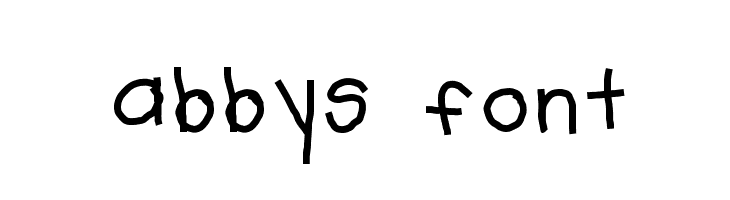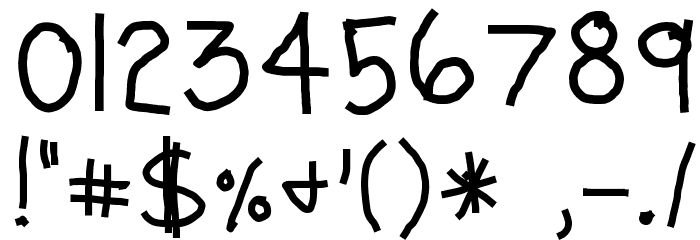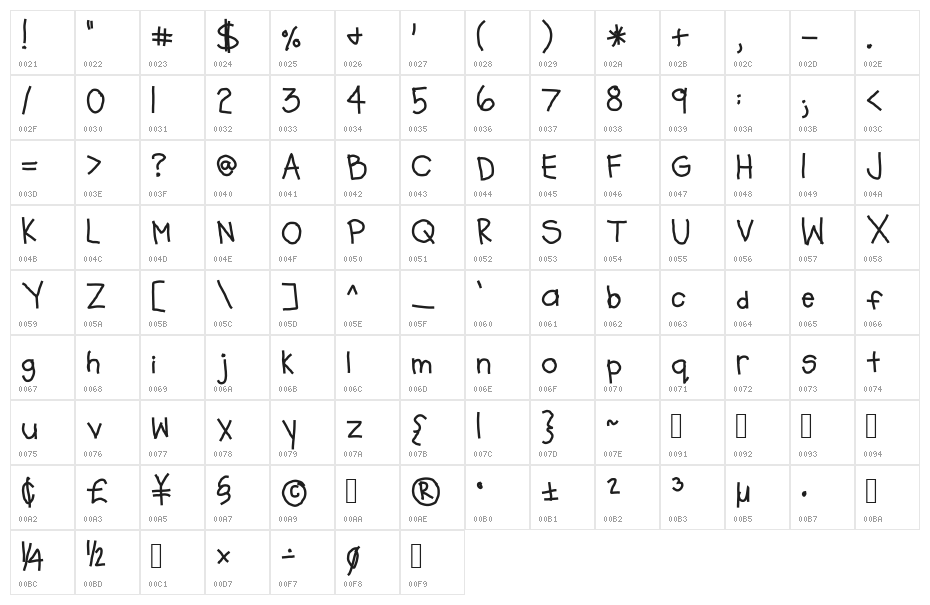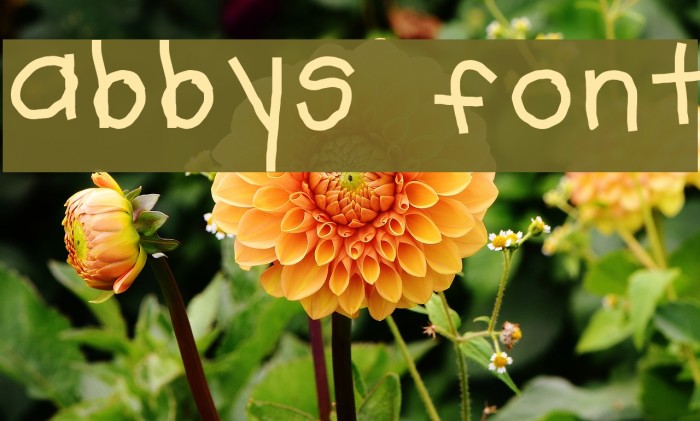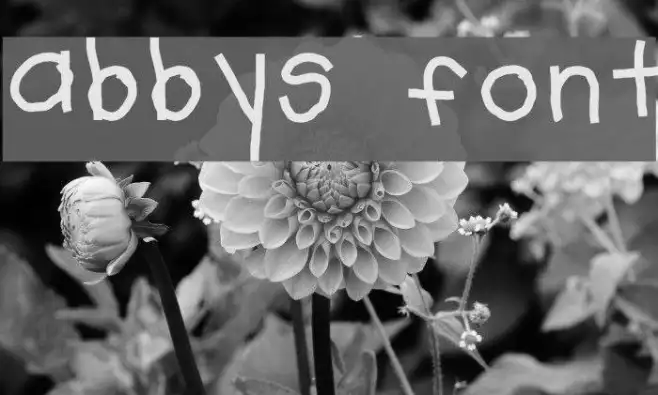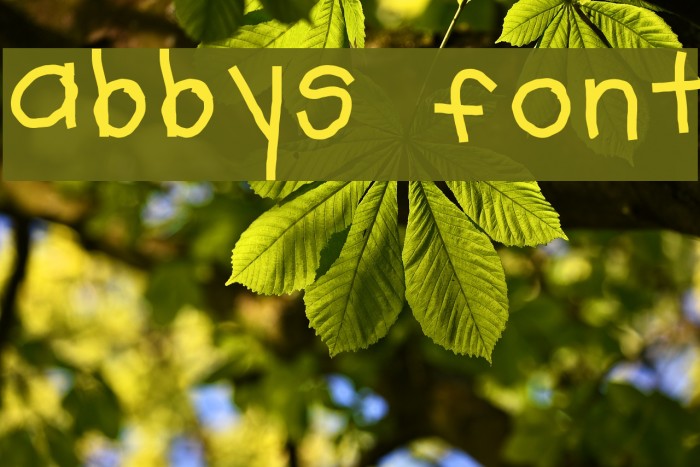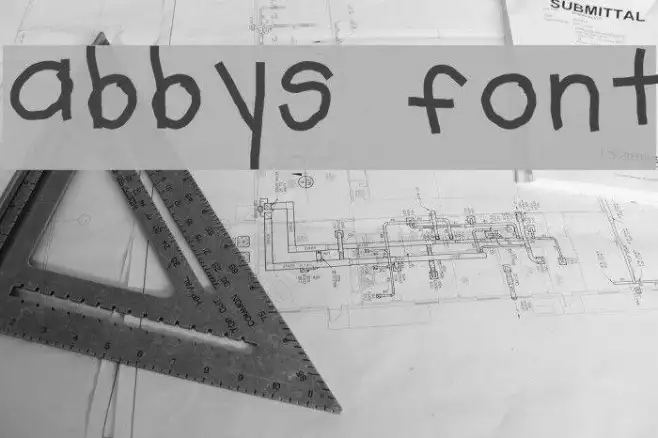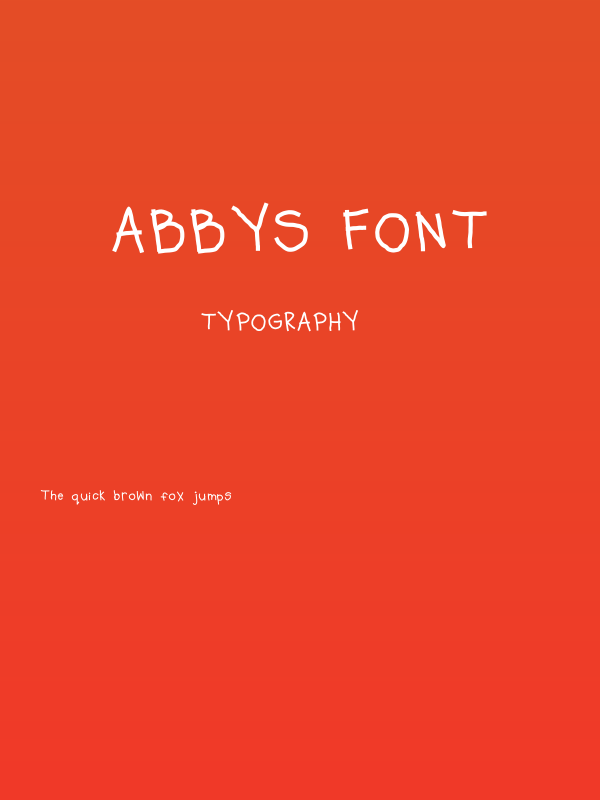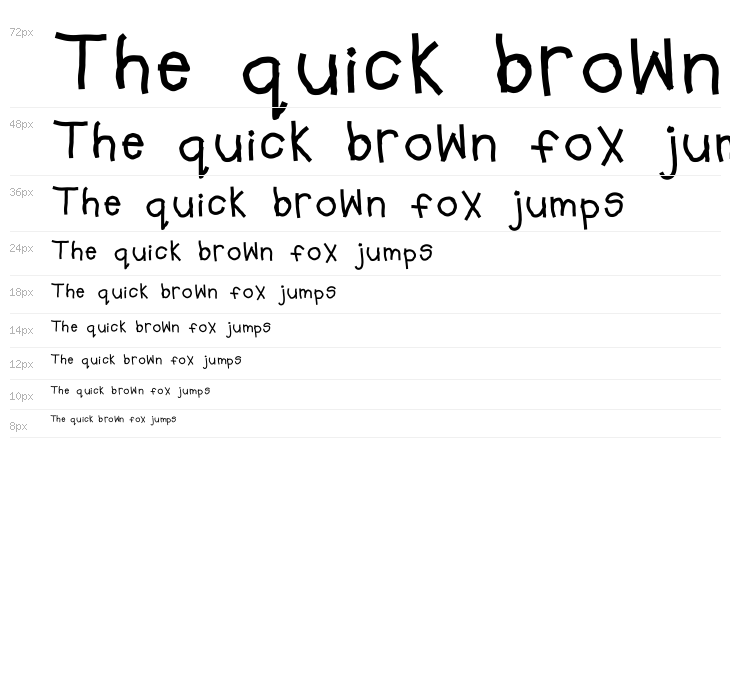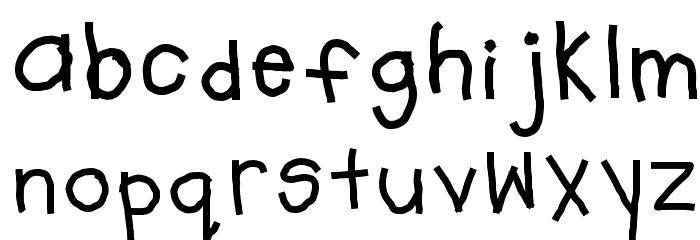
This font features a playful, handwritten style with a casual and informal appearance. The characters are slightly irregular, giving it a whimsical and friendly feel. The strokes are uneven, with a natural, hand-drawn quality that adds a personal touch. The uppercase and lowercase letters maintain a consistent style, while the numbers and special characters complement the overall design. This font is perfect for projects that require a fun and approachable aesthetic.
| Proposed Projects | Ideal for children's books, greeting cards, casual branding, and creative projects that require a personal touch. |